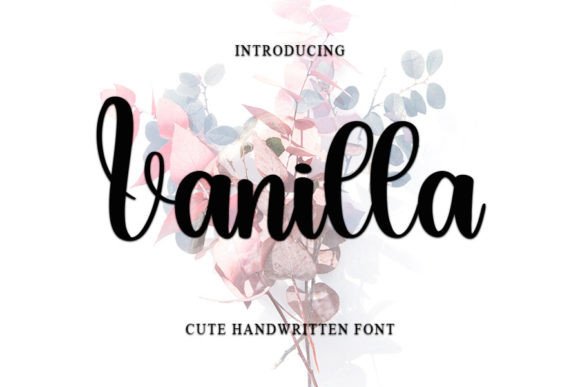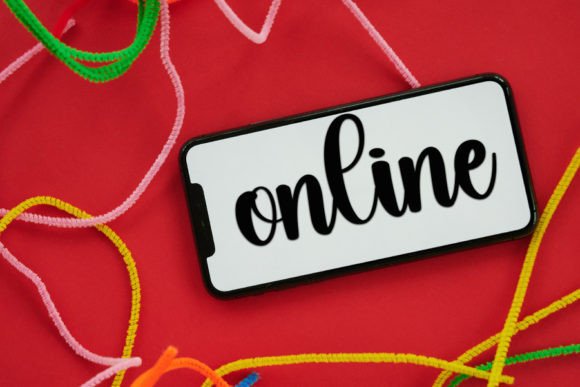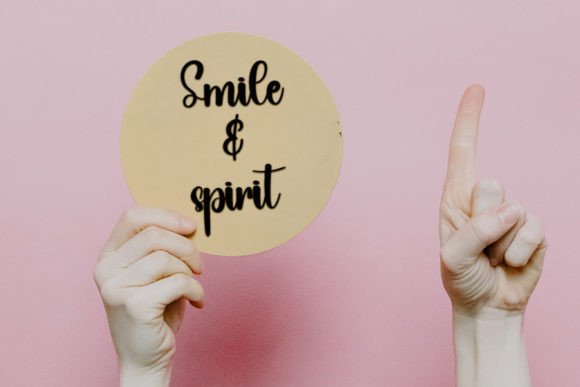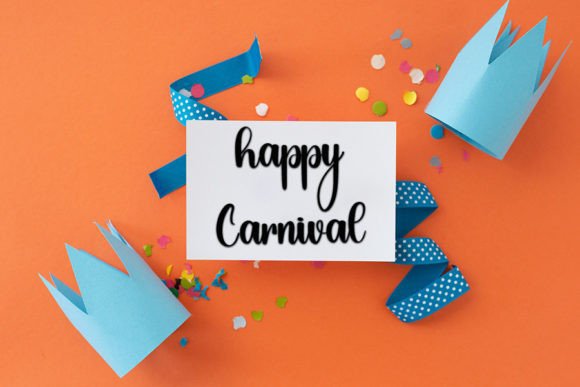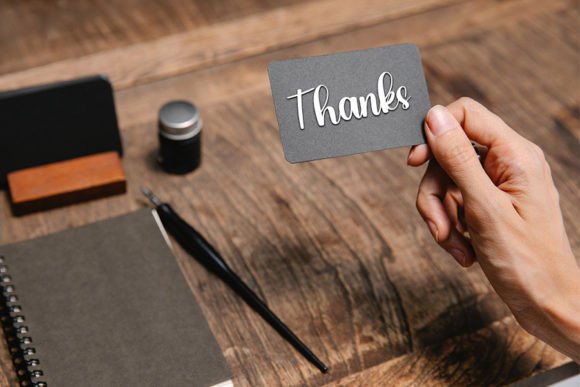
Vanilla Font
About Vanilla Font
“Vanilla” is a neat and beautiful handwritten font characterized by an elegant touch, making it perfect for a wide range of creative projects. This font’s distinct and timeless style is sure to capture your heart and elevate your designs.
The font’s neat and elegant design adds a sense of sophistication and refinement to your work, making it ideal for conveying a polished and stylish aesthetic. Whether you’re working on branding, invitations, stationery, or any other design project, “Vanilla” effortlessly enhances your creations with its distinct and elegant typography.
“Vanilla” is a font that stands out for its unique and timeless appeal, making it a valuable asset for designers and creators looking to infuse their work with an air of elegance and style.
In summary, “Vanilla” is more than just a font; it’s a creative tool that brings a sense of timeless beauty to your design endeavors. Its neat and elegant design, combined with its versatility, makes it a valuable addition to your font collection. Fall in love with “Vanilla” and experience how it transforms your creative projects into spectacular and refined designs.